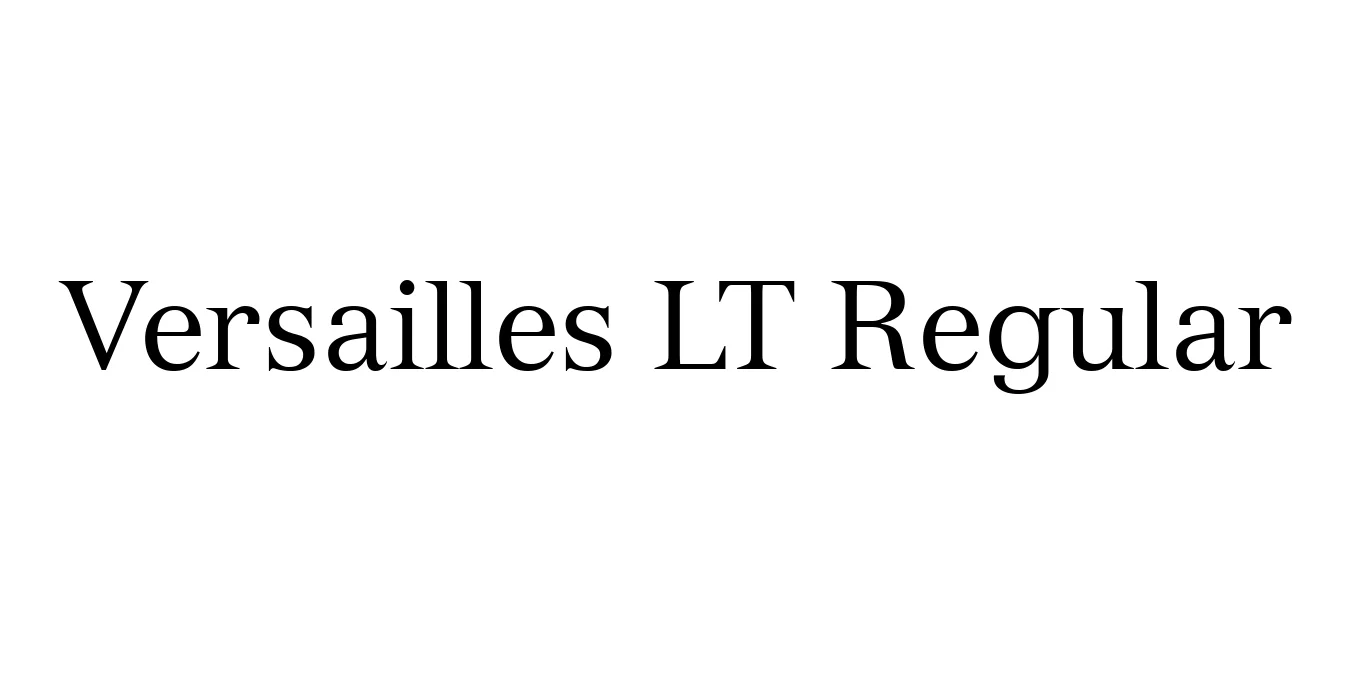
Versailles LT Regular
Designed by Adrian Frutiger
| Font Name | Versailles LT |
| Designer | Adrian Frutiger |
Versailles LT Regular is a sophisticated serif typeface designed by the renowned Swiss typographer Adrian Frutiger in 1984. Drawing inspiration from the late 18th-century French neoclassical style, it captures the essence of Parisian elegance. The font is characterized by its high stroke contrast and sharp serifs, reminiscent of the Didot and Bodoni families, but with a unique softness and rounded terminals that make it more legible and approachable than its predecessors.
The typeface was specifically crafted to evoke the grandeur of the Palace of Versailles, balancing formal structure with ornamental beauty. Its proportions are refined and delicate, making it a favorite for high-end editorial design and luxury branding. Whether used in large display sizes or for short passages of text, Versailles LT Regular brings a timeless European aesthetic to any design project, solidifying its place as a classic in modern typography.
Versailles LT Regular Best Uses
Perfect for high-end fashion magazines and lifestyle publications.
Ideal for luxury labels, fragrance packaging, and boutique identities.
Excellent for creating sophisticated titles and large-scale display text.
Adds a classic and refined touch to wedding invitations and formal business cards.